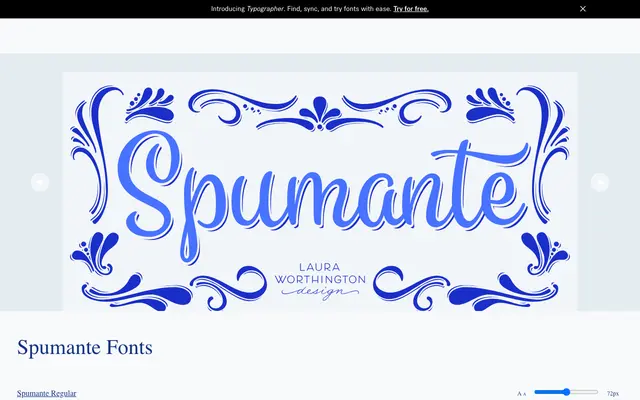
Spumante
A slim, semi-connected upright script with over 200 swashes, alternates and ornaments, suited to packaging, labels and invitations.
Spumante's upright curves and semi-connected letterforms give it a sprightly, decorative character without the forward lean typical of calligraphic scripts. The family includes a shadow variant and a bold weight, while titling alternates produce an unconnected, minimalist look when required. Extensive OpenType support covers stylistic sets, ornaments and common ligatures, accessible even without professional design software.
A semi-connected, upright script with lithely curved letterforms, placing it firmly in the script category with an upright rather than slanted axis, closer to copperplate-influenced display lettering.